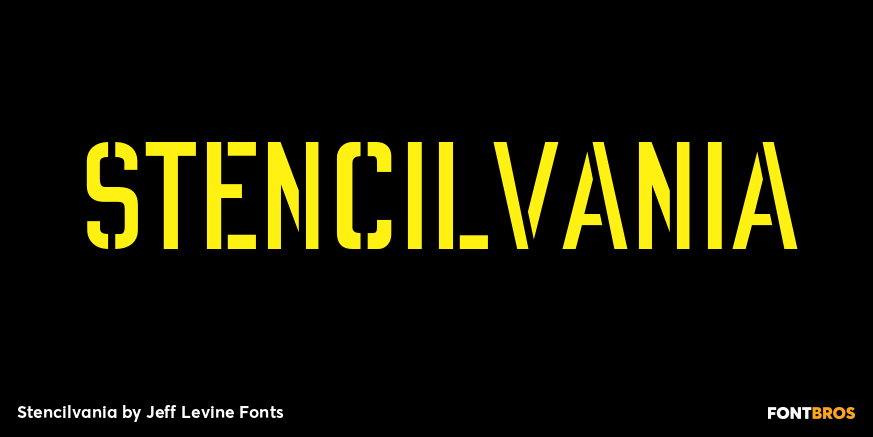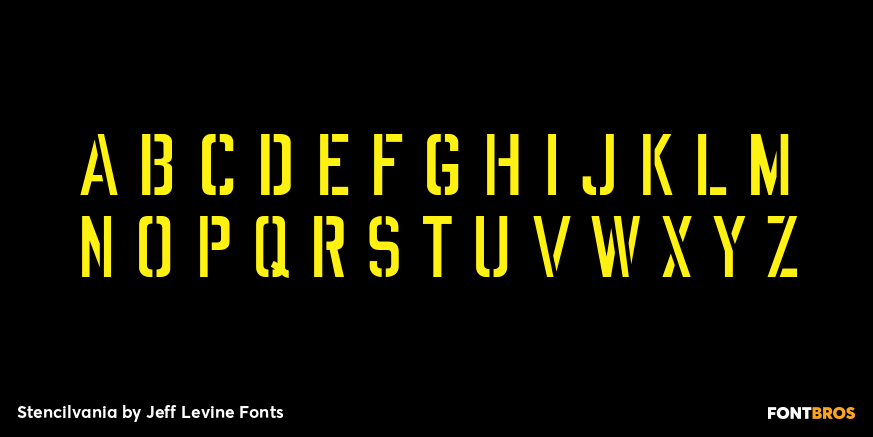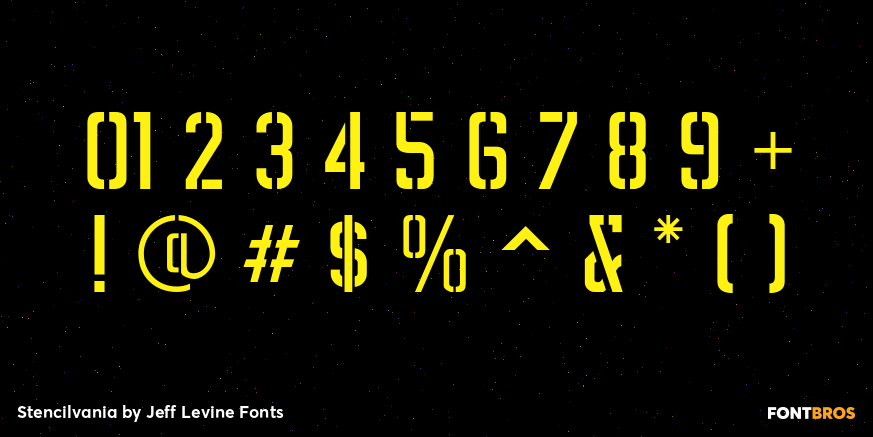
Stencilvania
Stencilvania JNL is one of the growing number of stencil fonts based on original source material by Jeff Levine.
In this case, a "solid letter" stencil from years ago was modified to give it the classic stencil look of broken lines.